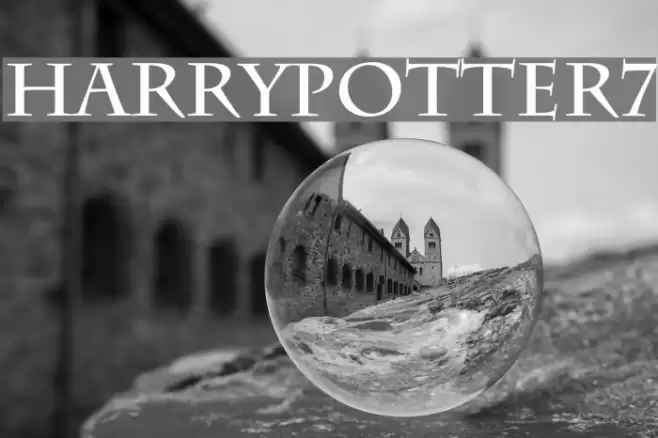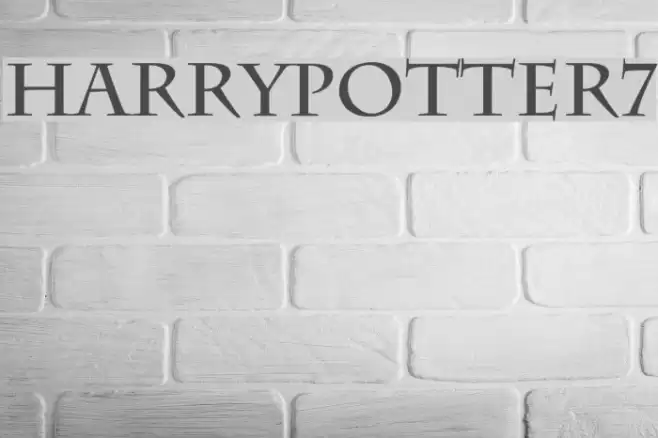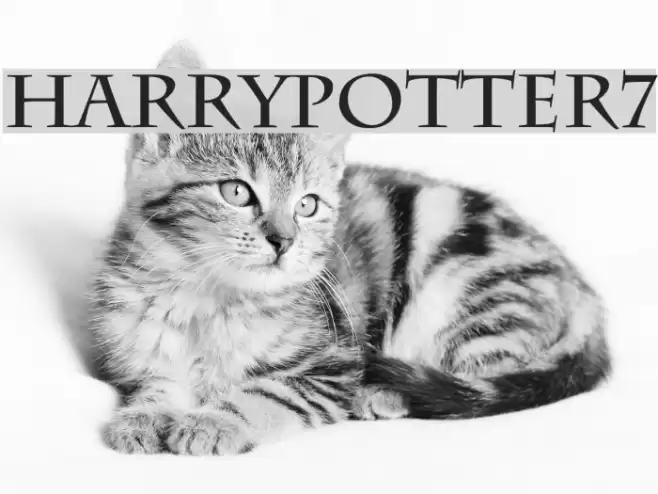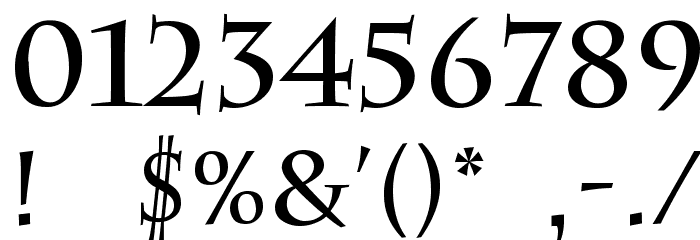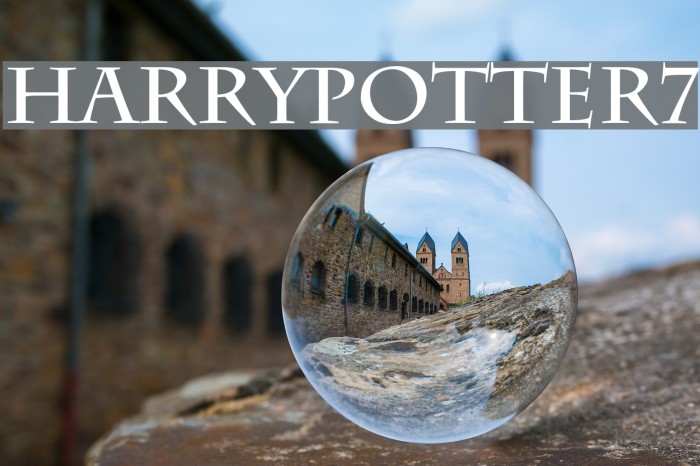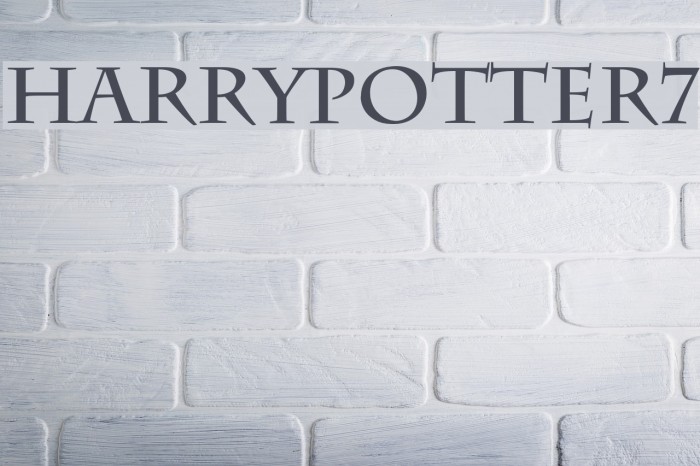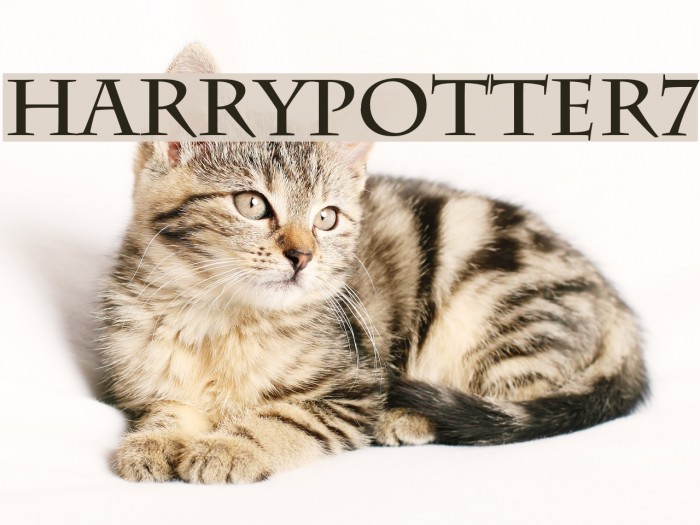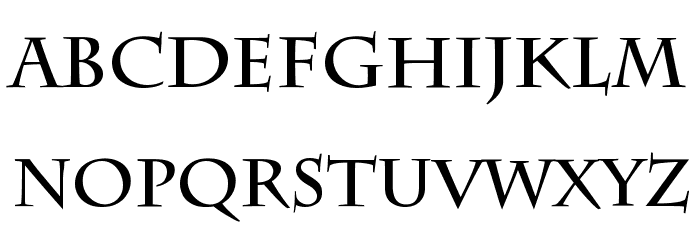
HarryPotter7 Font
HarryPotter7 Description
This font features a distinctive and dramatic style, characterized by sharp, pointed serifs and a medieval flair. The uppercase letters are bold and commanding, with a unique flair that evokes a sense of mystery and magic. The lowercase letters maintain the same sharpness and elegance, providing a cohesive look across the typeface. Numbers and special characters are designed with the same attention to detail, ensuring consistency throughout. The overall design is reminiscent of ancient scripts, making it ideal for projects that require a touch of fantasy or historical ambiance.
A dramatic serif font with sharp, pointed serifs and a medieval flair from Uncategorized fonts.
- Proposed Projects: Perfect for fantasy book covers, movie posters, themed event invitations, and branding for mystical or historical products.